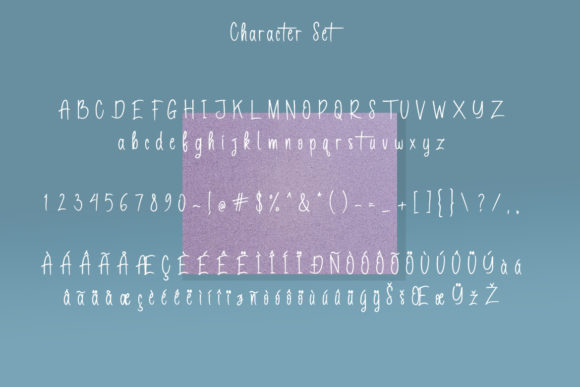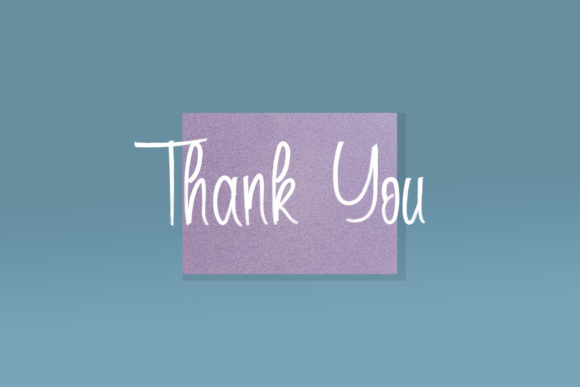
Introduction to Ramonety Font Font
Fonts play a crucial role in design, and the Ramonety Font font is a typeface that brings both character and versatility to any project. Whether you’re working on a branding project, a website, or a print design, the Ramonety Font font offers a unique style that can elevate your work.
Ramonety is a cute and thin lettered, brushed handwritten font.
Its authentic look will add a personal and realistic feel to your designs The only limit is your imagination.
Key Features of Ramonety Font Font
Why Choose Ramonety Font Font?
The Ramonety Font font is more than just a typeface – it’s a design tool that helps you communicate your message with style and clarity. Its unique character set and versatile design make it suitable for a wide range of applications, from elegant invitations to bold headlines.
With its carefully crafted letterforms and balanced proportions, the Ramonety Font font ensures readability and visual appeal across all mediums.
What makes Ramonety Font font special?
The Ramonety Font font stands out with its unique design, exceptional readability, and versatility across various design applications.